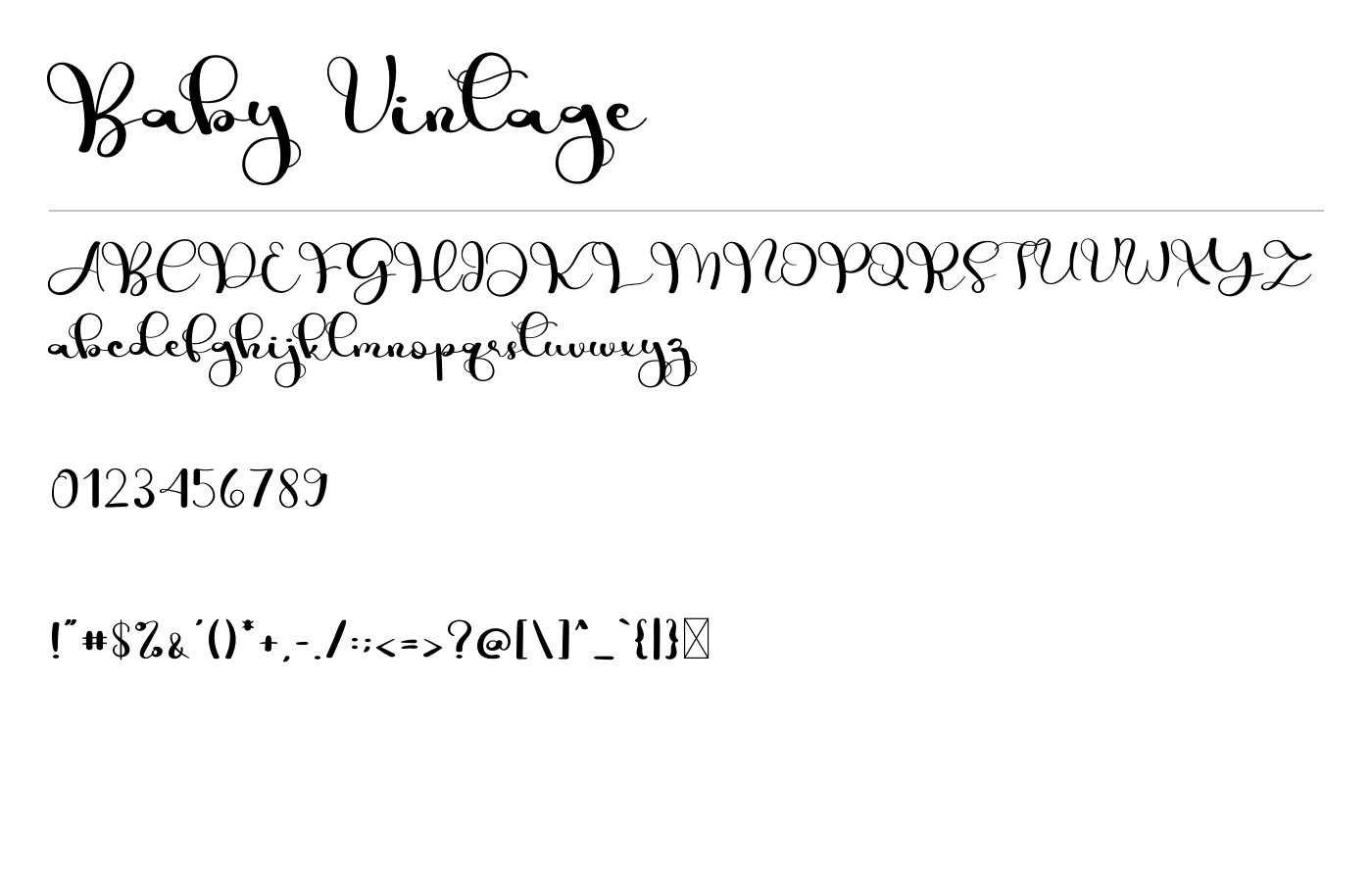
Baby Vintage is a delicate script font with a playful, handwritten feel characterized by elegant loops and swirls. Its light weight and airy strokes give it a charming vintage personality, making it perfect for invitations, branding, and projects that need a touch of whimsy and sophistication. This font works best in decorative, feminine contexts where its ornate style can shine.
Baby Vintage Font